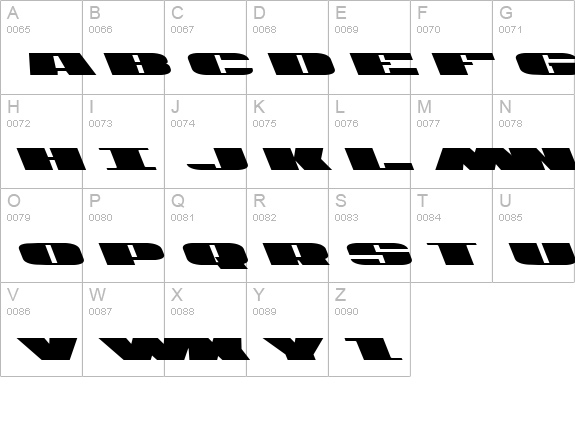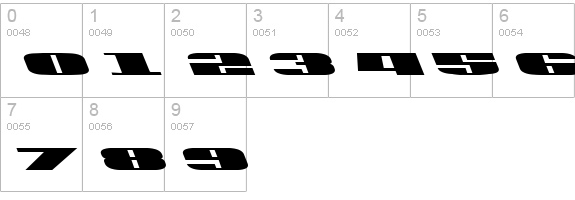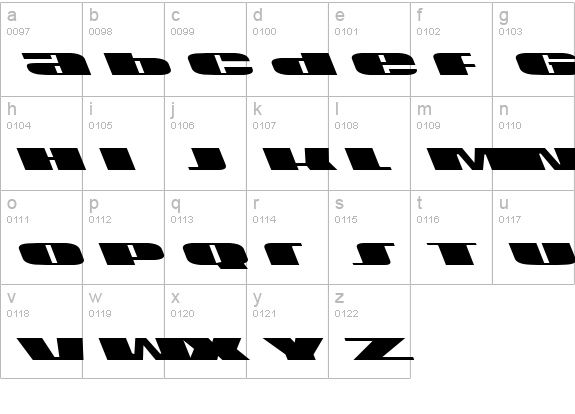
U.S.A. Leftalic font is a bold and dynamic typeface that exudes a sense of freedom and creativity. With its sleek and modern design, this font is perfect for adding a touch of sophistication to any project. The unique slant of the letters adds an element of movement and energy, making it ideal for capturing attention and making a statement. Whether you're designing a logo, creating a poster, or crafting a website, U.S.A. Leftalic font will elevate your work to new heights. Its versatility allows it to be used in a wide range of contexts, from corporate branding to artistic endeavors. The clean and crisp lines of each letter ensure legibility, making it suitable for both large headlines and small body text. What sets U.S.A. Leftalic font apart is that it is freely available to download at FontsMarket.com. This means that you have the freedom to use it in any personal or commercial project without any restrictions. It's a valuable resource for designers and creatives who are looking for high-quality fonts that won't break the bank. So why wait? Download U.S.A. Leftalic font today and unleash your creativity. From its bold and eye-catching design to its freedom of use, this font is sure to make a lasting impression on your audience. Don't miss out on this opportunity to add a touch of elegance and style to your designs. Get U.S.A. Leftalic font now, exclusively at FontsMarket.com.